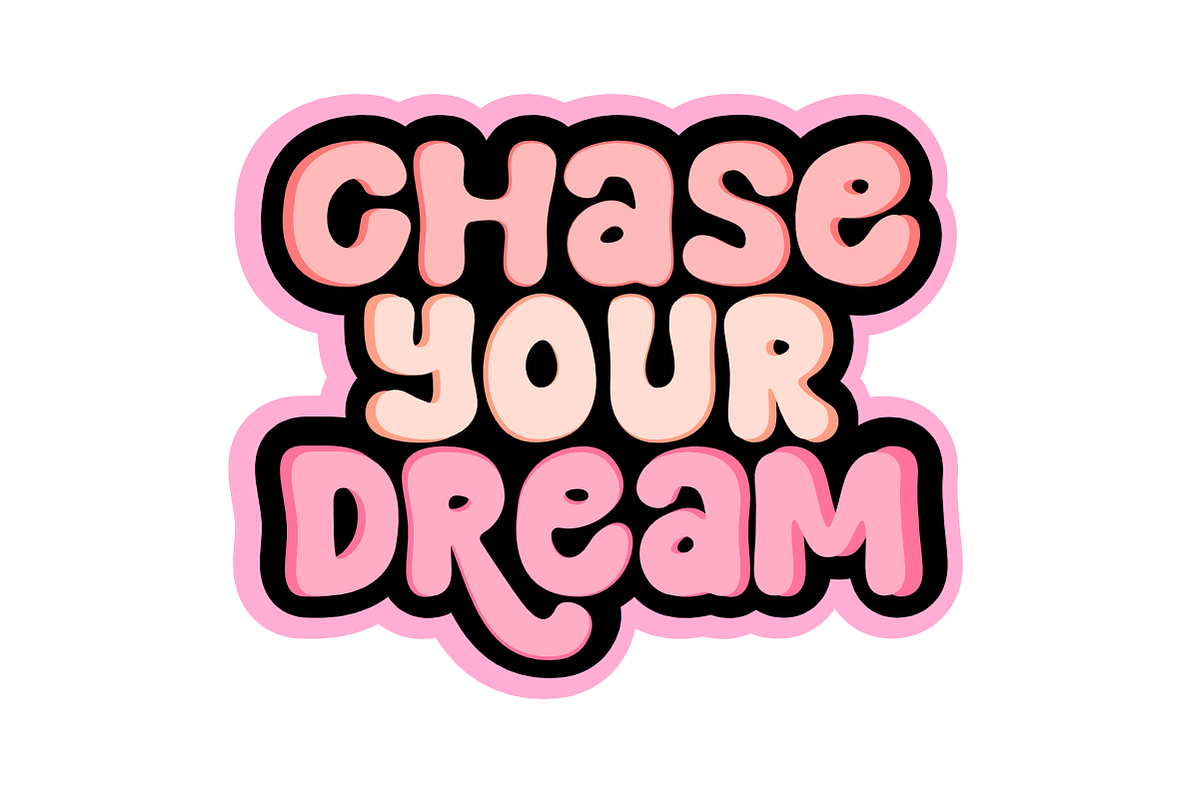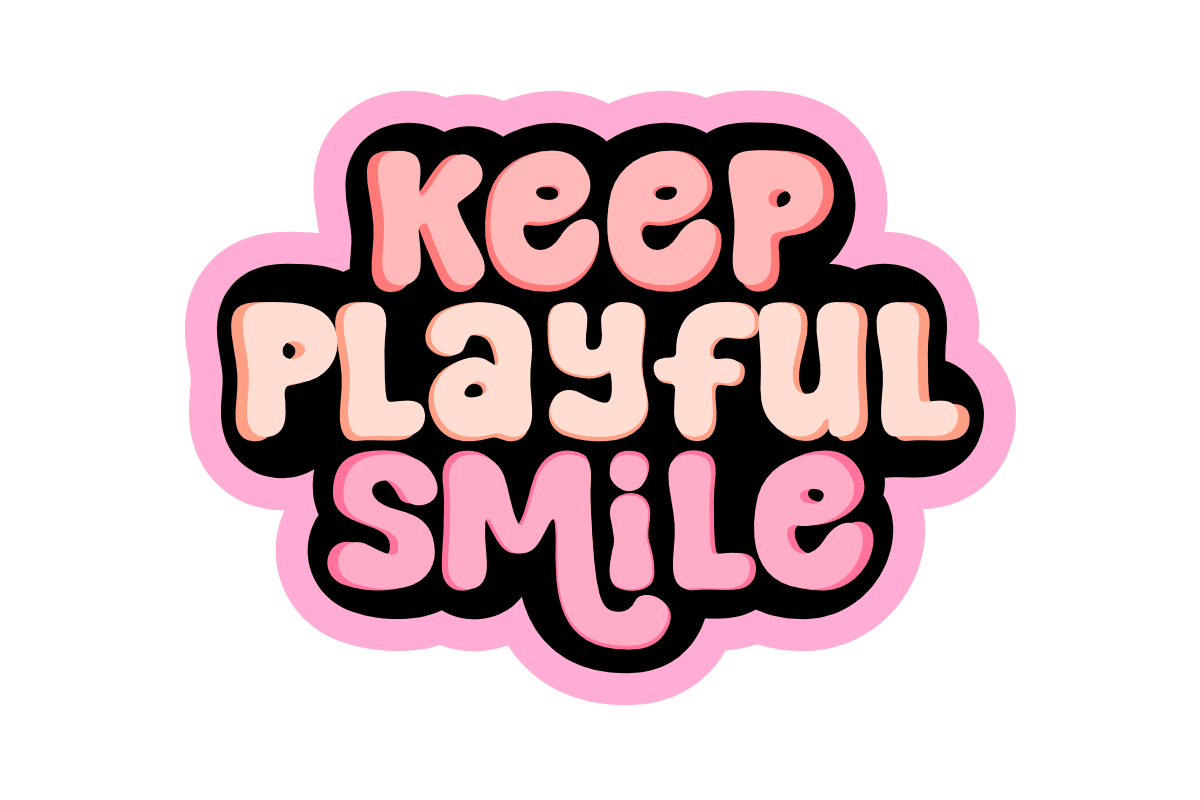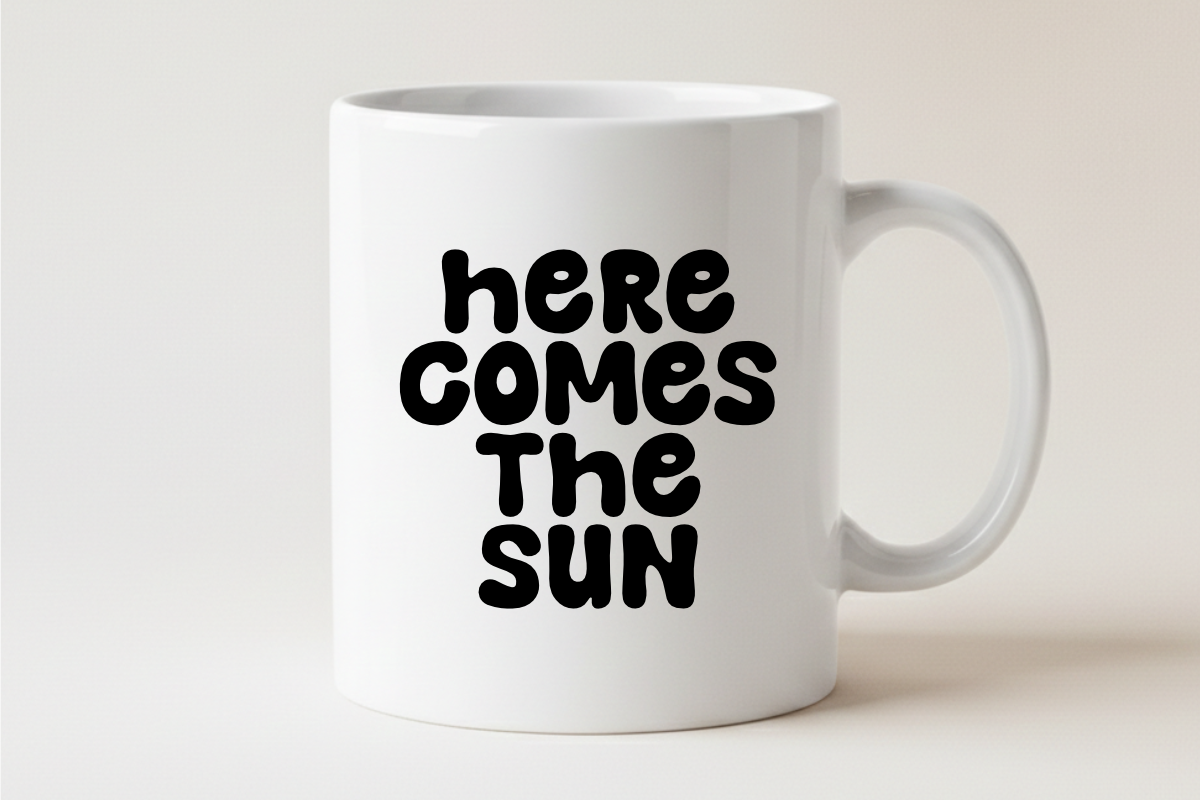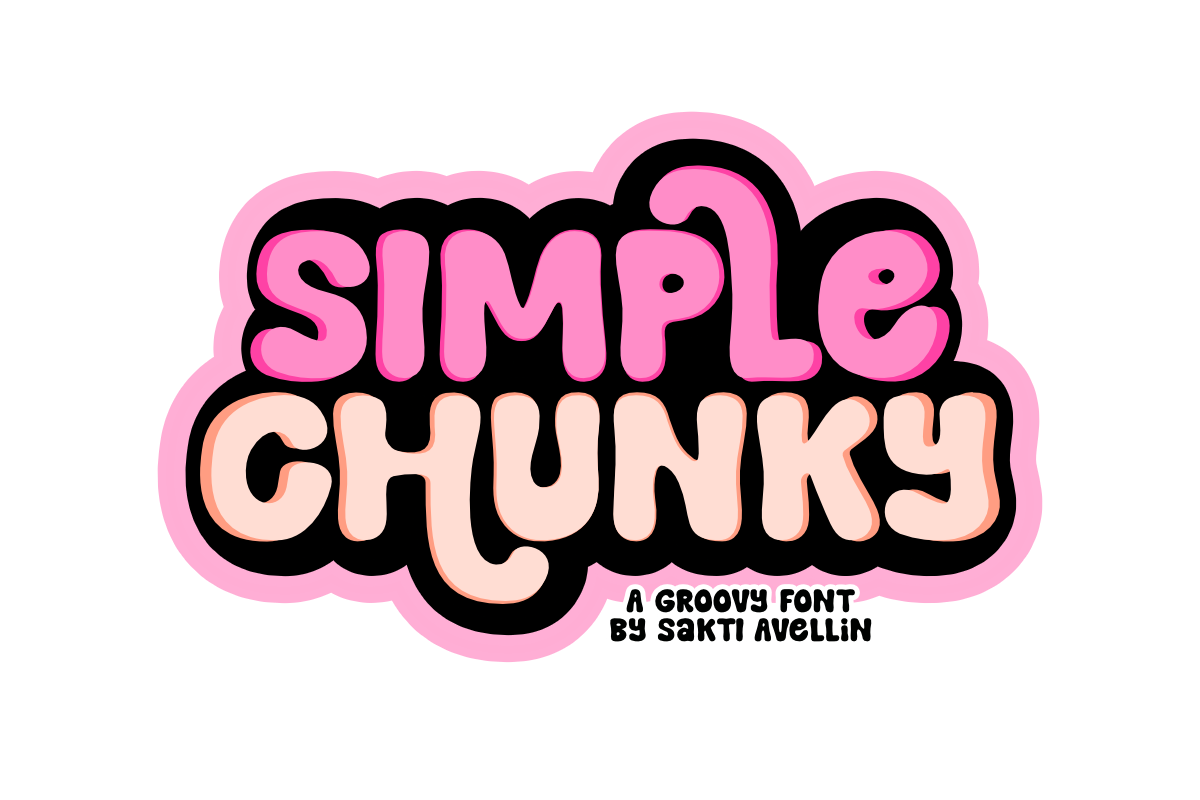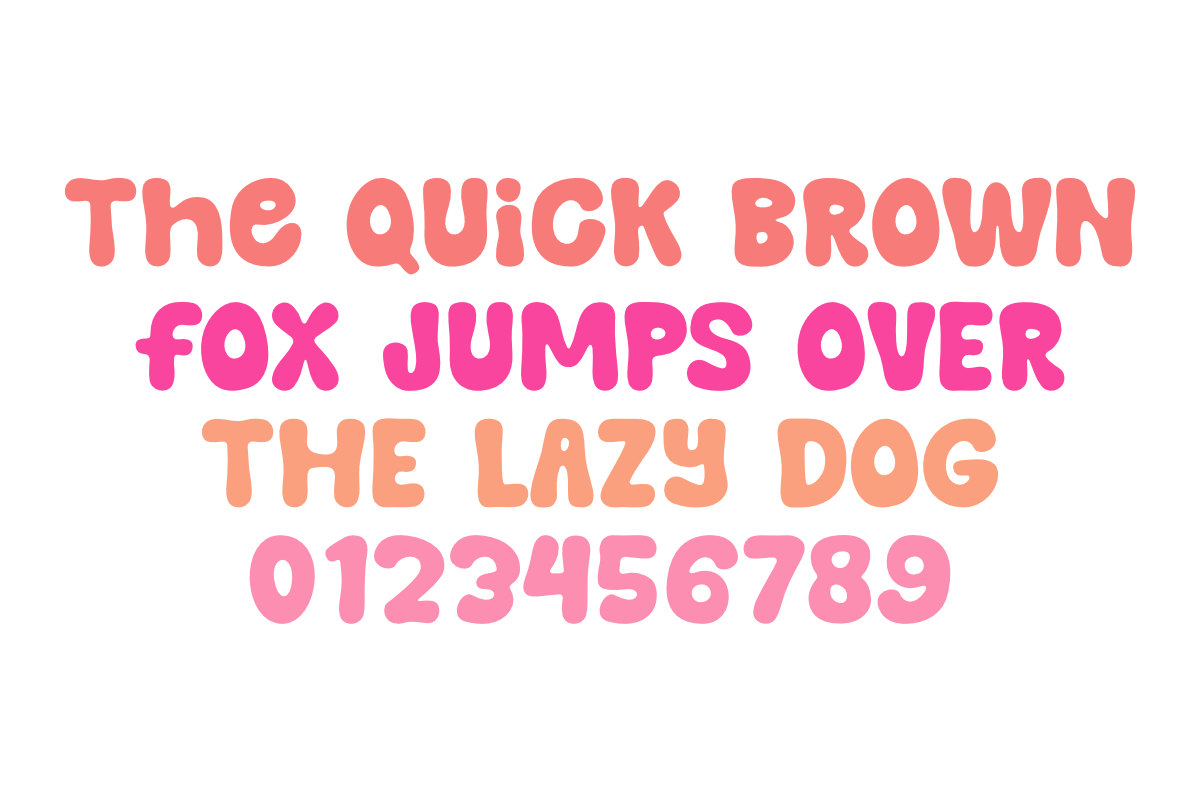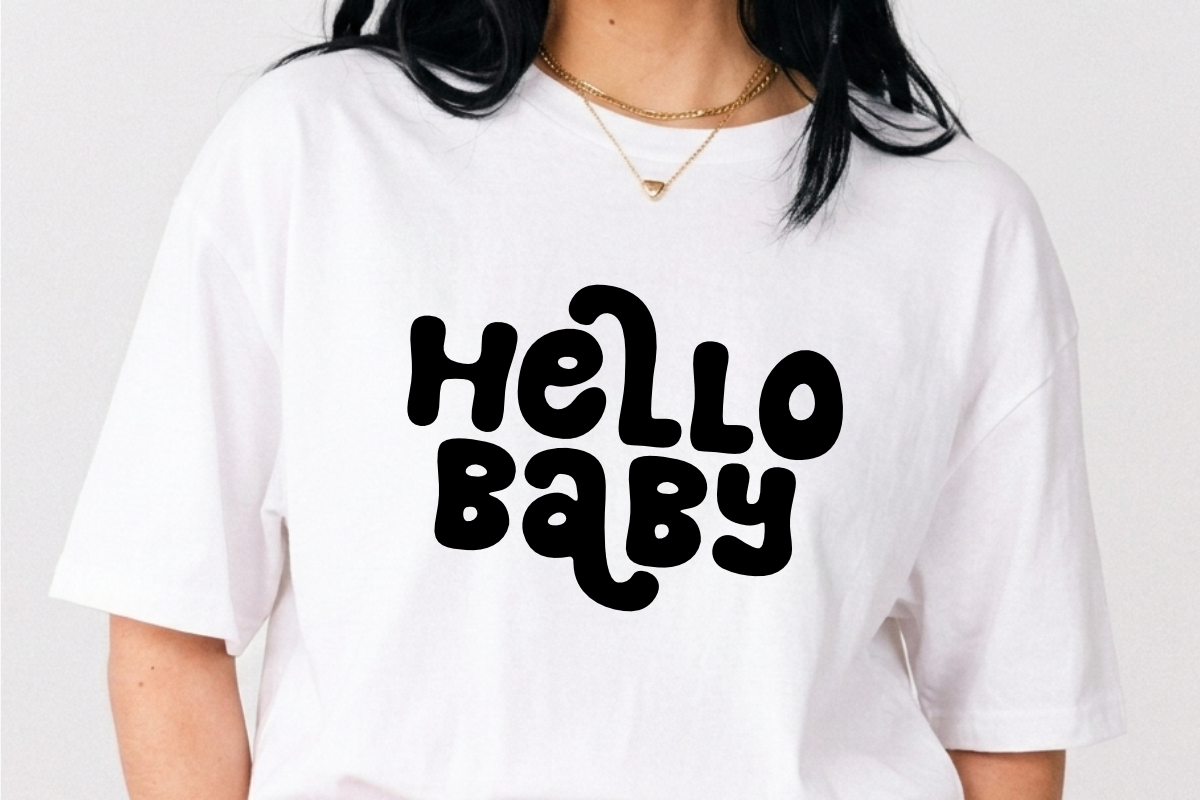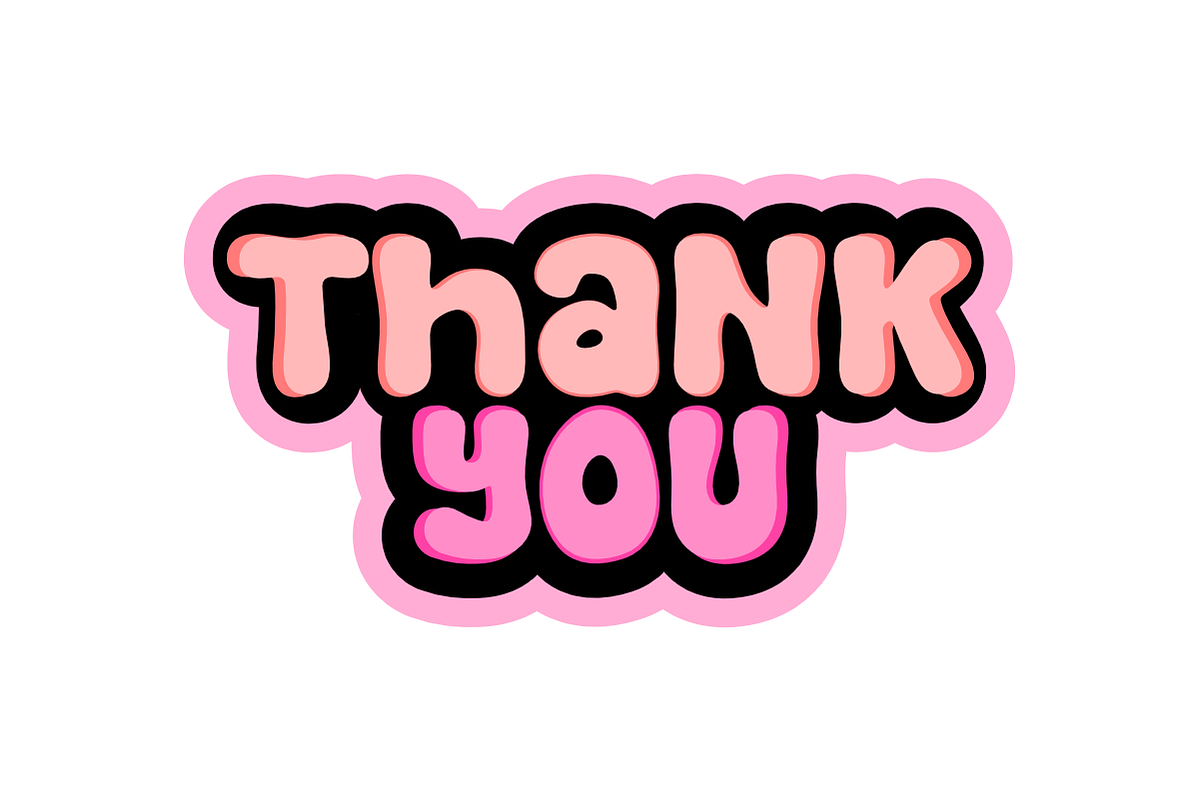
Simple Chunky - Groovy Font
Simple Chunky is a fun and expressive groovy font designed to bring a bold, retro aesthetic to your creative projects. This charming display typeface features thick, curvy, and wavy letterforms that effortlessly capture a joyful and free-spirited vibe. Perfect for retro branding, psychedelic posters, funky apparel, sticker designs, and cheerful social media graphics, this font ensures your headlines stand out with a unique, handcrafted personality. Whether you are designing for seasonal events, music festival promos, or playful stationery, Simple Chunky adds a lively and artistic touch to every design.